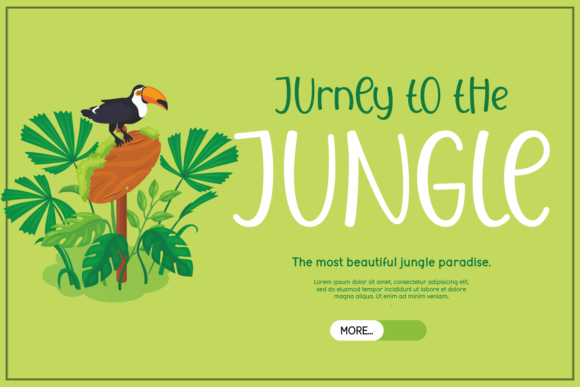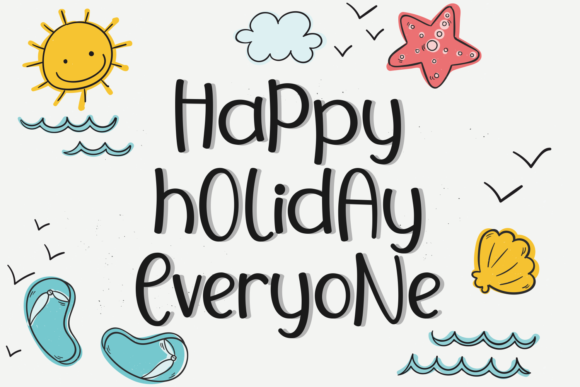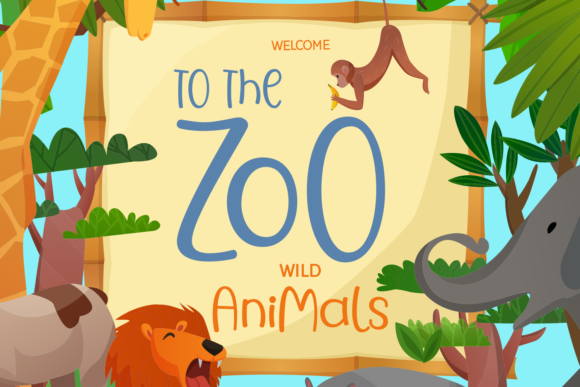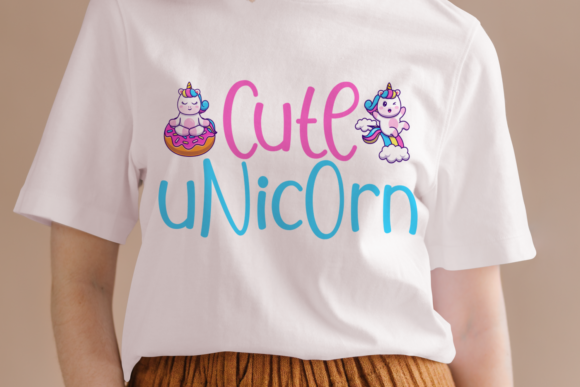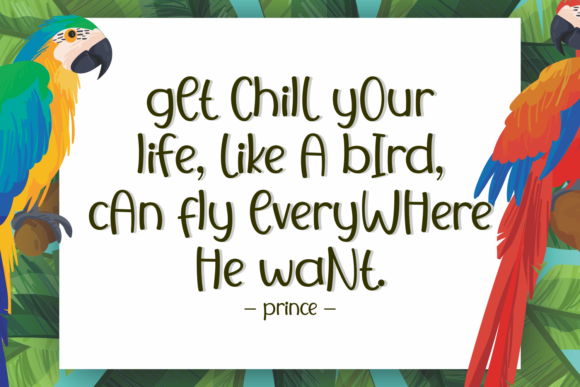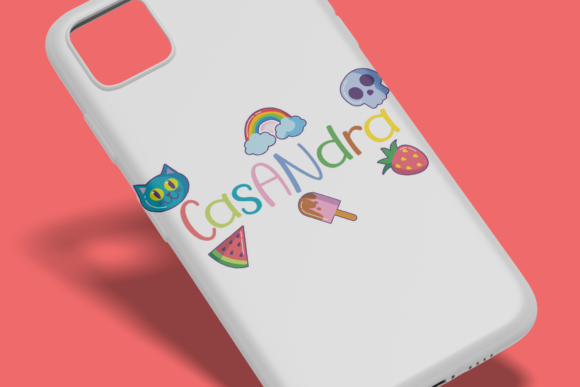
Introduction to Hey Bird Font Font
Fonts play a crucial role in design, and the Hey Bird Font font is a typeface that brings both character and versatility to any project. Whether you’re working on a branding project, a website, or a print design, the Hey Bird Font font offers a unique style that can elevate your work.
Hey Bird is a cute display font, perfect for children-themed designs, art prints, t-shirts, pillowcases, nursery rooms, stickers, wall art, signs, birthday cards, etc.
Key Features of Hey Bird Font Font
Why Choose Hey Bird Font Font?
The Hey Bird Font font is more than just a typeface – it’s a design tool that helps you communicate your message with style and clarity. Its unique character set and versatile design make it suitable for a wide range of applications, from elegant invitations to bold headlines.
With its carefully crafted letterforms and balanced proportions, the Hey Bird Font font ensures readability and visual appeal across all mediums.
What makes Hey Bird Font font special?
The Hey Bird Font font stands out with its unique design, exceptional readability, and versatility across various design applications.